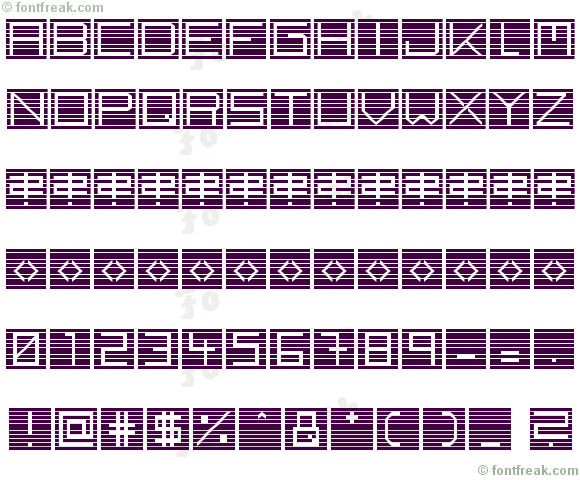
back to heavy coat fat ground_line-sh Regular
The "back to heavy coat fat ground_line-sh Regular" font, designed by Manuel Viergutz, is a unique display typeface that falls into the category of sans-serif fonts. Its bold, geometric structure features a consistent stroke weight that gives it a robust appearance, making it an eye-catching choice for various design projects. The font has minimal contrast, which adds to its modern aesthetic, while the ample letter spacing enhances readability, ensuring that your message stands out clearly.
This font is particularly well-suited for a range of use cases. It can be effectively utilized in branding for contemporary businesses, particularly those in the creative or tech industries. Its playful yet strong design makes it an excellent choice for promotional materials, such as flyers and posters. Additionally, the "back to heavy coat fat ground_line-sh Regular" font would shine in product packaging, lending a distinctive flair to labels and boxes. Its unique characteristics also make it a great fit for social media graphics, where grabbing attention quickly is essential.
The target audience for this font includes graphic designers looking to add a distinctive touch to their projects, small business owners aiming to establish a memorable brand identity, and content creators who want to enhance their visual storytelling.